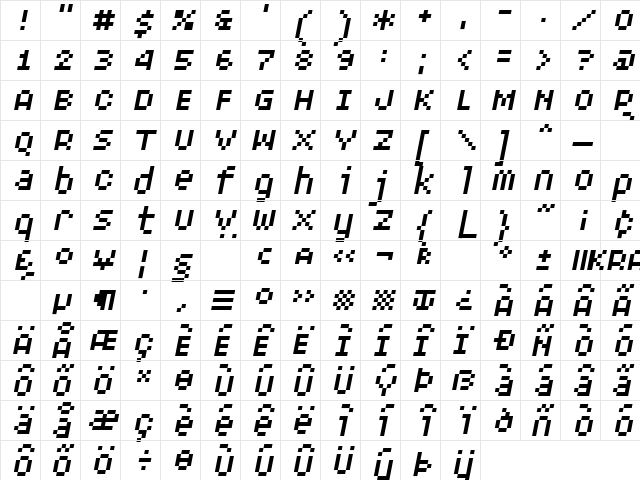
XERXES SIXOBLIQUE
Design Context for XERXES Typeface
XERXES offers clean, dependable letterforms without strong stylistic allegiance, making it a practical choice for designers who need flexibility. Its italic angle brings a sense of urgency and motion to the letterforms.
Pro Tip: Try XERXES for annotation and caption copy alongside an upright companion — the contrast in angle creates a dynamic but ordered typographic system.